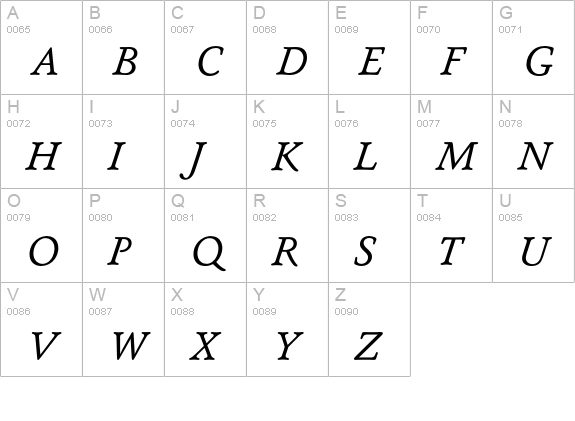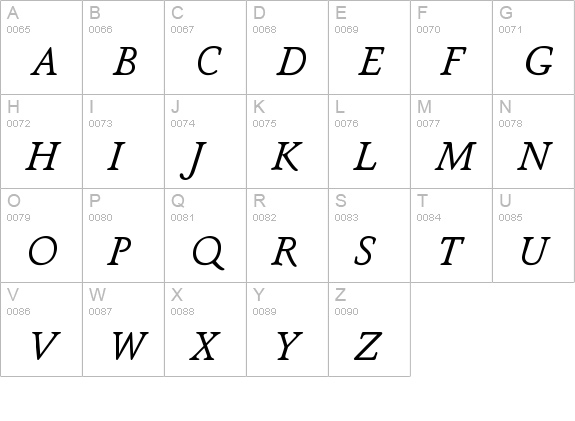
Seneca Italic is a distinctive, italic variant in the Seneca typeface family \xE2\x80\x94 well suited to design and typography projects.
Seneca Italic font is a stunning typographic masterpiece that exudes elegance and sophistication. Its graceful curves and gentle slant make it perfect for adding a touch of style to any design project. The italicized nature of this font adds a sense of movement and fluidity, creating a visually pleasing experience for the reader. But what makes Seneca Italic font truly special is that it is available for free! Yes, you read that right. This exquisite font can be freely downloaded from FontsMarket.com, allowing designers, creatives, and enthusiasts alike to access its beauty without any cost. Whether you're working on a personal project, a professional presentation, or anything in between, Seneca Italic font will elevate your work to new heights. Its versatility allows it to be used in a wide range of design applications, from branding and logos to invitations and website headers. With Seneca Italic font, you have the opportunity to add a touch of sophistication and style to your creations, all while enjoying the freedom of using a high-quality font that is freely available to download at FontsMarket.com. So why wait? Embrace the elegance of Seneca Italic font and let your designs speak for themselves.